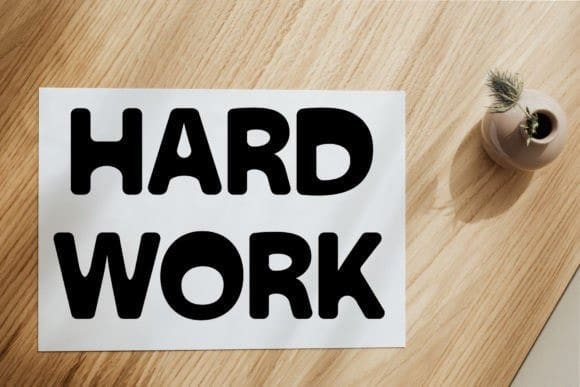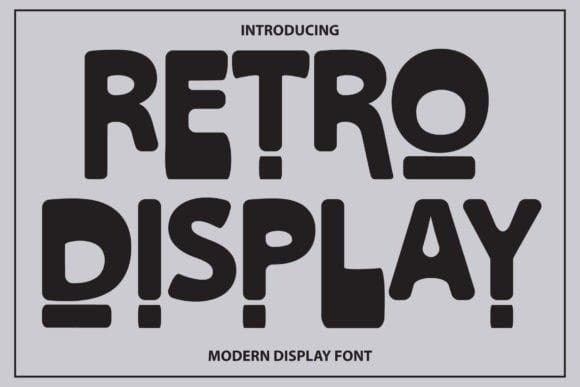
Retro Display Font
Retro Display Font is a cool and slightly groovy display font. No matter the topic, this font will be an incredible asset to your fonts’ library, as it has the potential to elevate any creation.